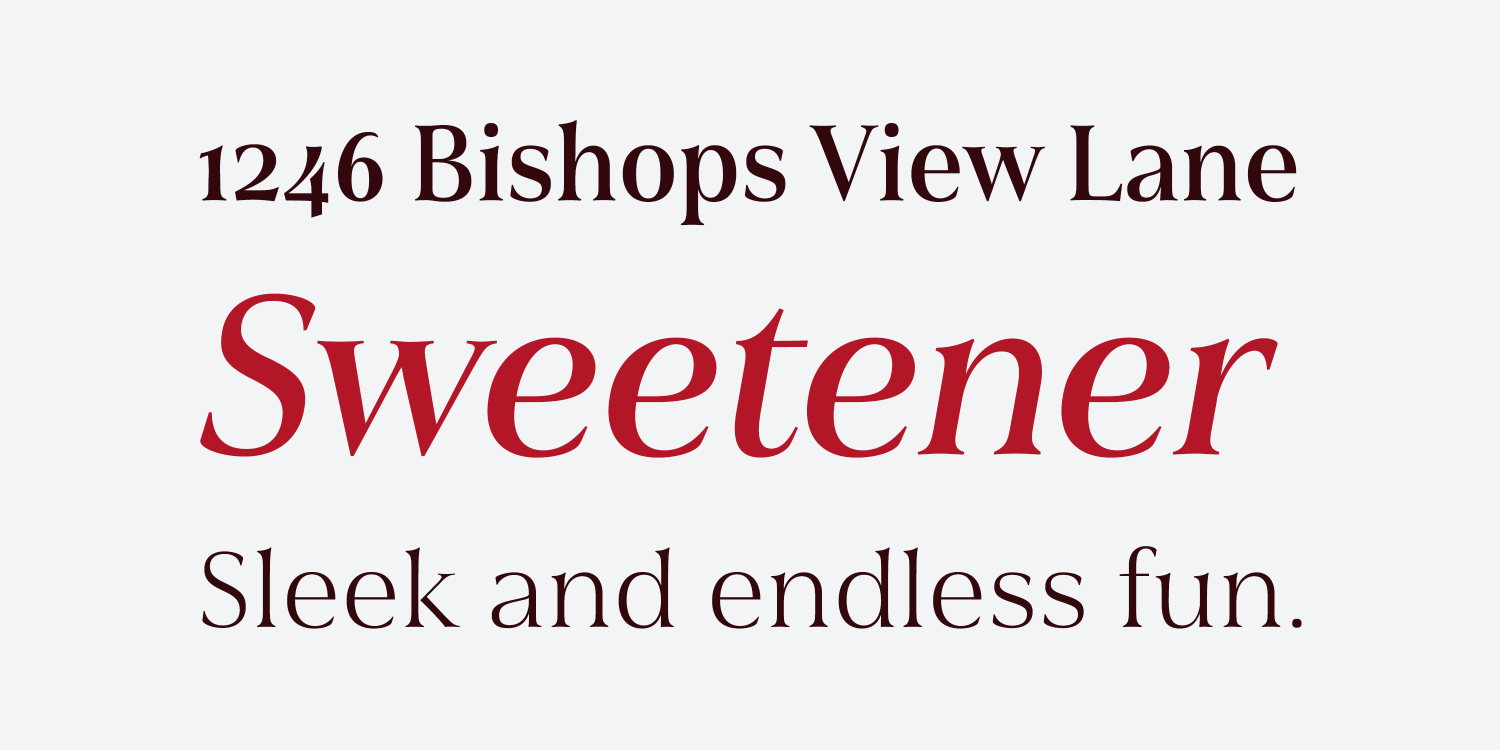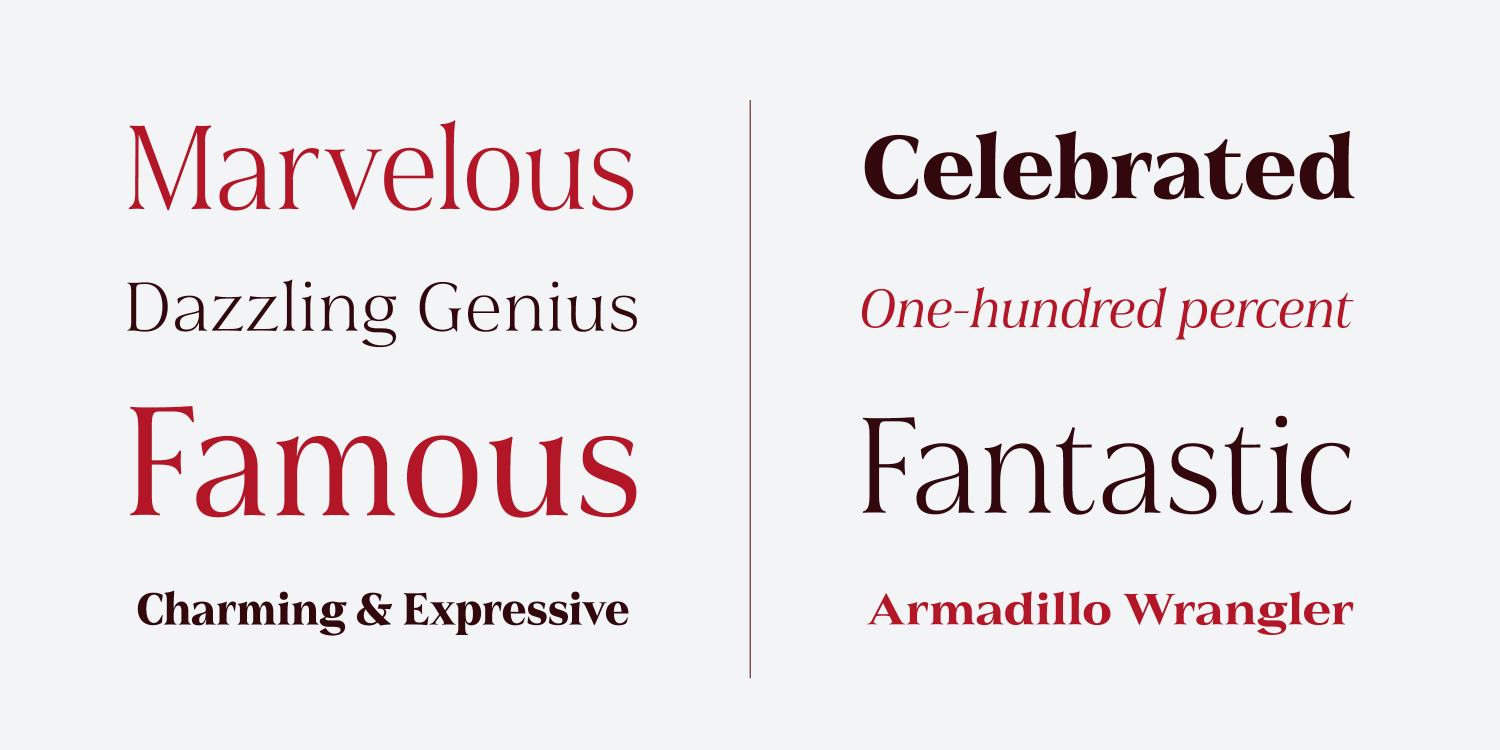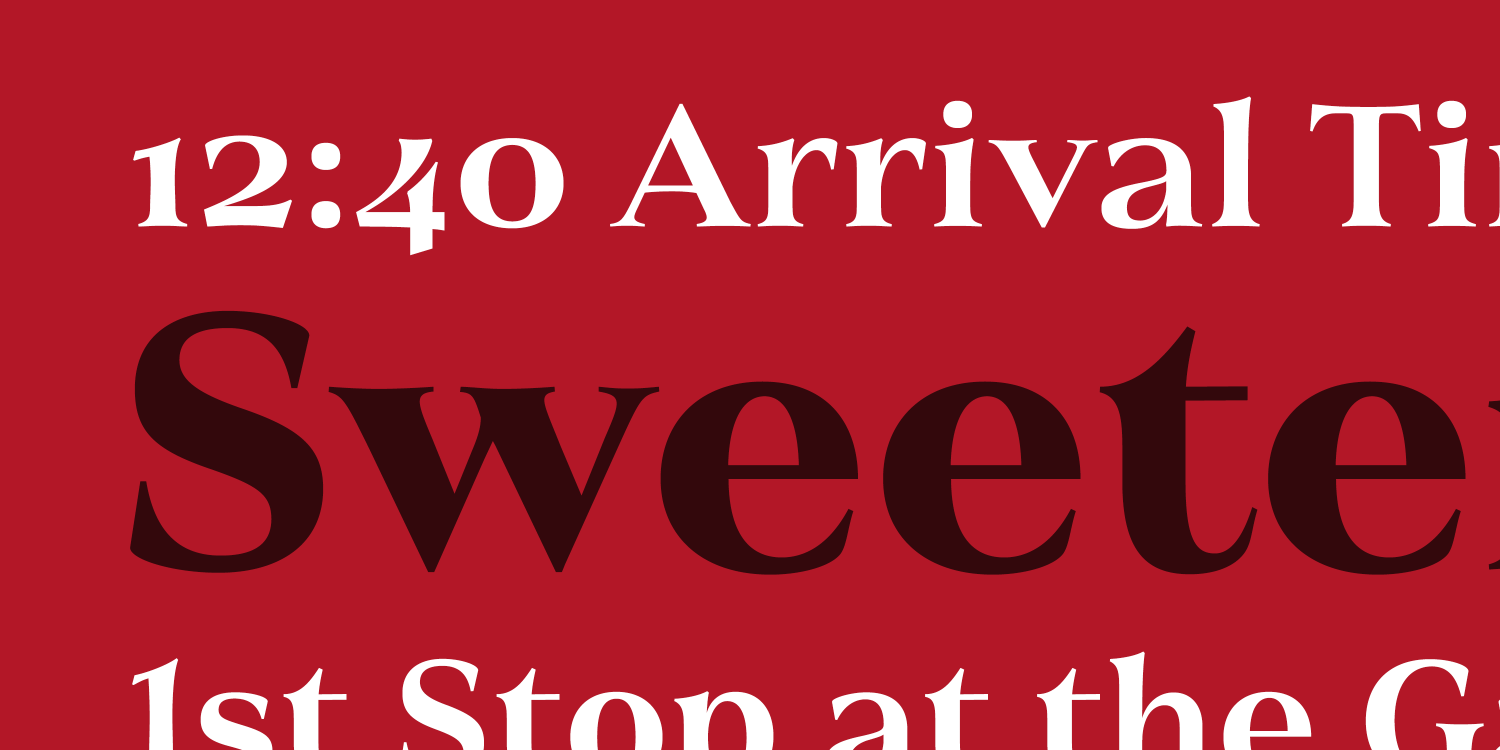
About Civane Serif
Civane Serif maintains the epic grandeur of Civane with a text-friendly typeface. Inspired by the great tales of old, the grandeur of Civane is refined into a serif font with sharp serifs. Civane Serif is a contemporary sans-serif typeface with a robust…